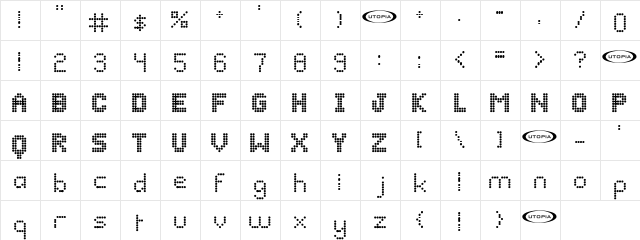
Bazaronite Regular
Design Context for Bazaronite Typeface
Bazaronite is a composed and adaptable typeface that performs quietly and consistently across a wide range of design contexts.